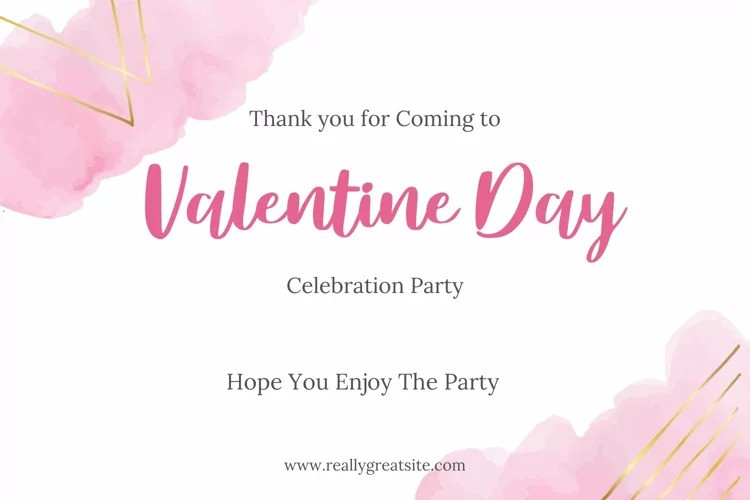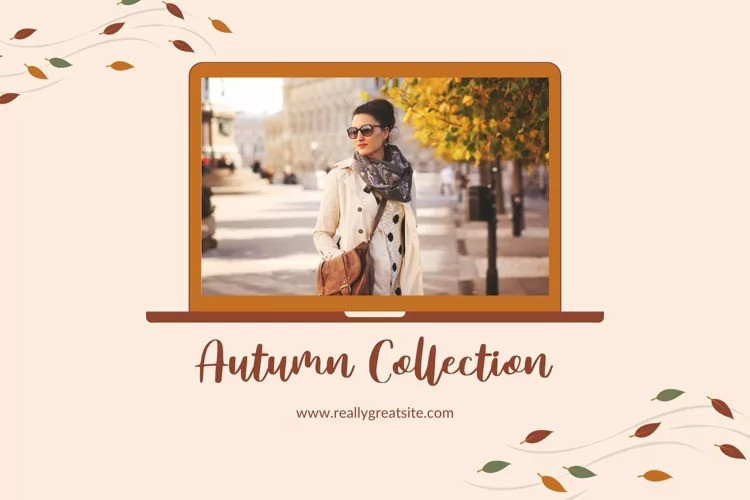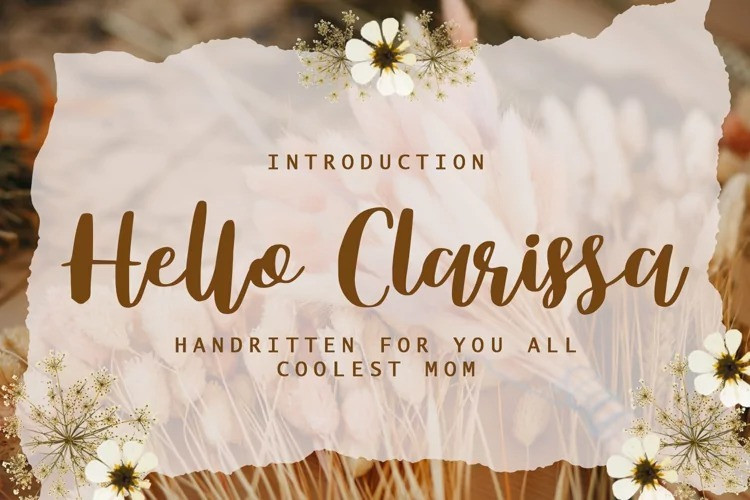
Hello Clarissa Font
Hello Clarissa Script Font is a lovely and incredibly delicate handwritten font. It is PUA encoded, which means that you can access all of the glyphs and swashes with ease! It features a varying baseline, smooth lines, gorgeous glyphs and stunning alternates. Fall in love with its incredibly versatile style and use it to create spectacular designs!